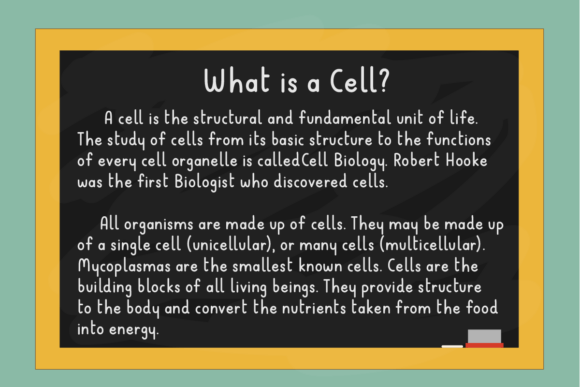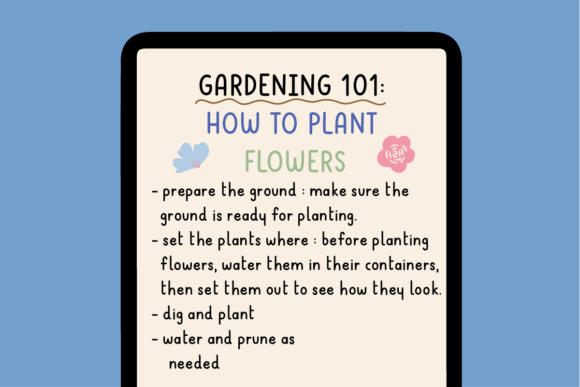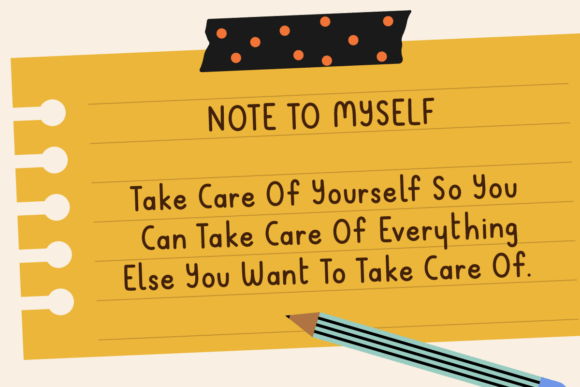
Introduction to Perfect Notes Font
Remember the joy of scribbling down your thoughts in a notebook, the sound of the pen gliding across the page, and the feeling of creating something personal? That’s exactly what the Perfect Notes Font embodies – a beautiful, handwritten font that captures the essence of free-spirited creativity.
For designers, Perfect Notes Font is a valuable design resource that can elevate any project. With its high-quality, transparent background, it’s perfect for creating engaging visuals, from posters to logos, and even packaging and greeting cards. And the best part? It’s available for free download, making it an excellent addition to any design library.
Whether you’re working on a creative project or simply want to add a personal touch to your everyday notes, Perfect Notes Font is the perfect choice.
Key Features of Perfect Notes Font
- High-quality, professional font design ideal for creative projects, documents, and presentations.
- Unique, modern design with a transparent background, allowing for easy layering and customization in design projects.
- Perfect for use in a variety of creative projects, including infographics, brochures, and digital signage.
- Designed to be highly legible and readable, even in small font sizes, making it perfect for notes, quotes, and other text-based content.
Honest Review: Perfect Notes Font
I recently stumbled upon the Perfect Notes Font while searching for a high-quality design resource for a creative project. As a designer, I’m always on the lookout for fonts that can elevate my work, and I’m excited to share my honest review.
What works well: ✨ The Perfect Notes Font is incredibly easy to use, with a transparent background that makes it perfect for overlaying on images. The font is also free to download, which is a huge bonus for designers on a budget. The quality is top-notch, with clear and crisp lettering that’s perfect for both digital and print projects.
What doesn’t work well: ⚠️ While the Perfect Notes Font is generally a great choice, it may not be the best option for projects that require a lot of customization. The font is quite stylized, which can make it difficult to modify or combine with other fonts.
Overall, I’m impressed with the Perfect Notes Font and would definitely recommend it to designers looking for a high-quality, free design resource. With its transparent background and crisp lettering, it’s perfect for a variety of creative projects.
Tips for Getting the Most Out of Perfect Notes Font
Perfect Notes Font is a high-quality design resource that can be used in a variety of creative projects. To get the most out of it, use it in conjunction with a transparent background to create a unique and eye-catching design. You can also experiment with different font sizes, colors, and styles to create a custom look that suits your project’s requirements.
Perfect Notes Font is commonly used in creative projects such as infographics, posters, and social media graphics. It’s also a popular choice for designing presentations, brochures, and other marketing materials. You can download the font for free and use it in your next creative project.